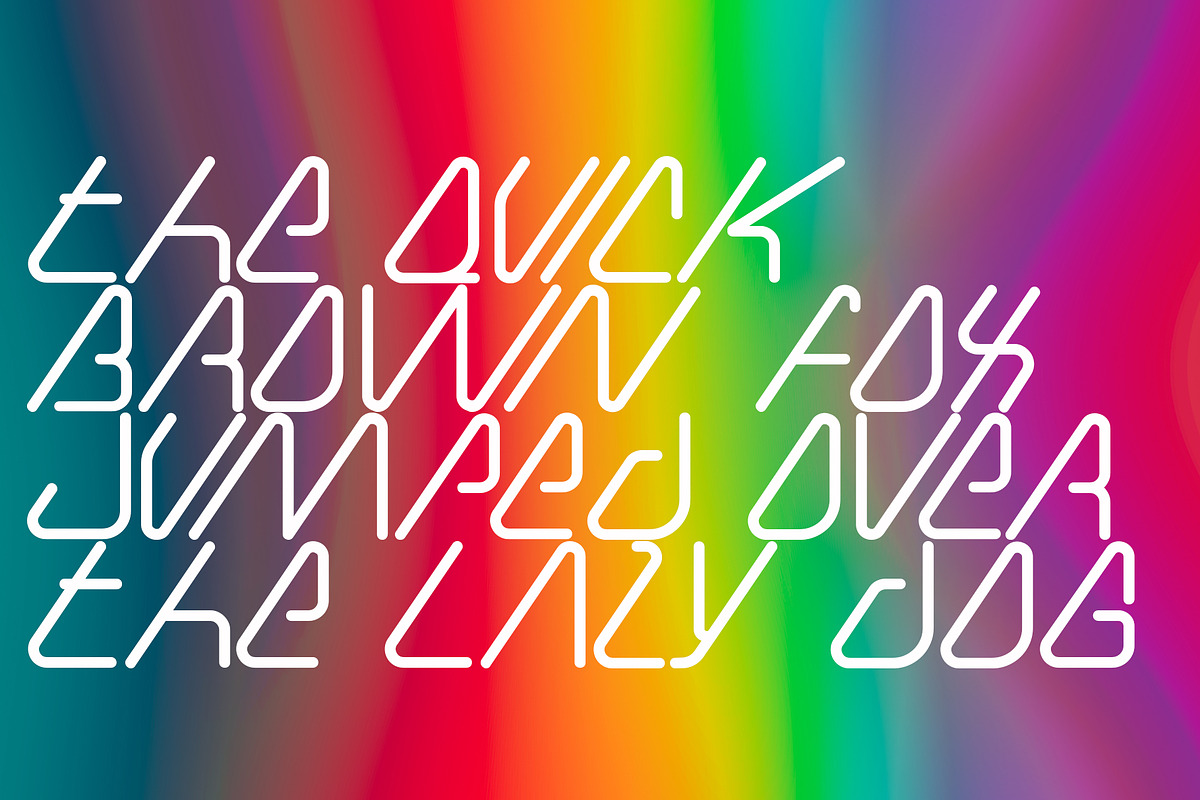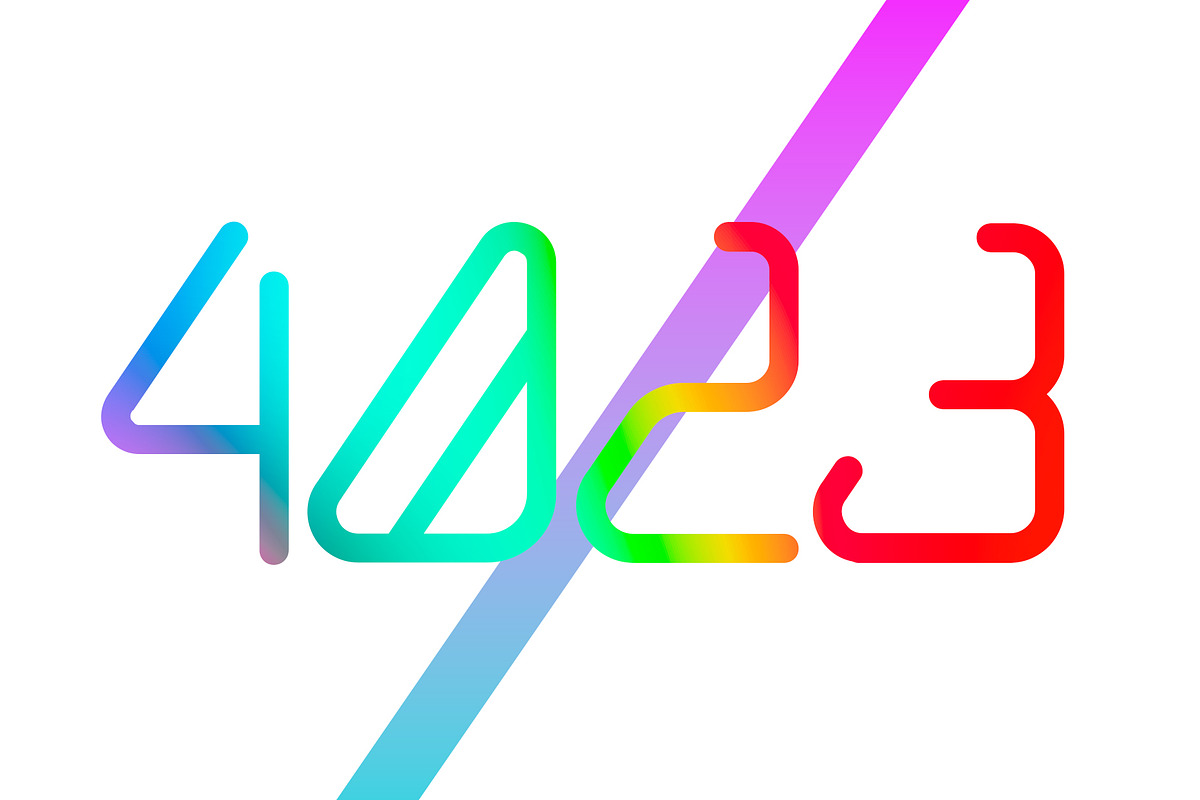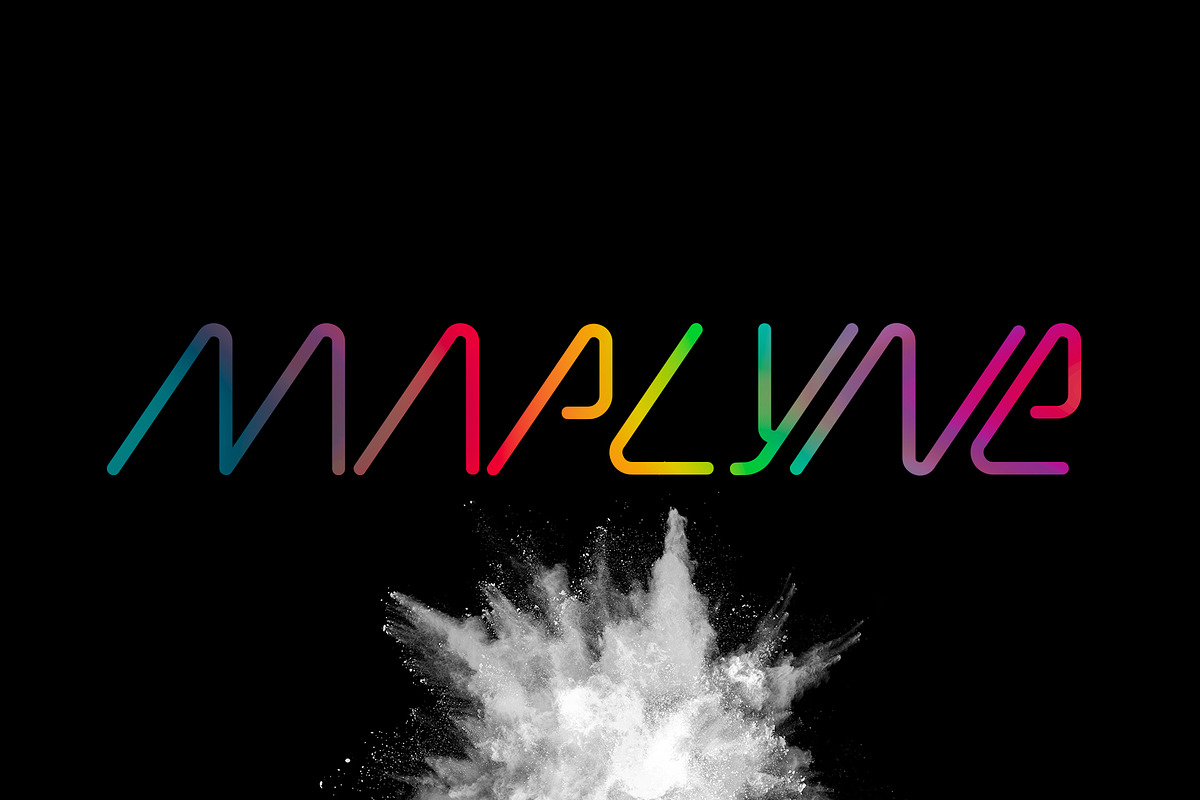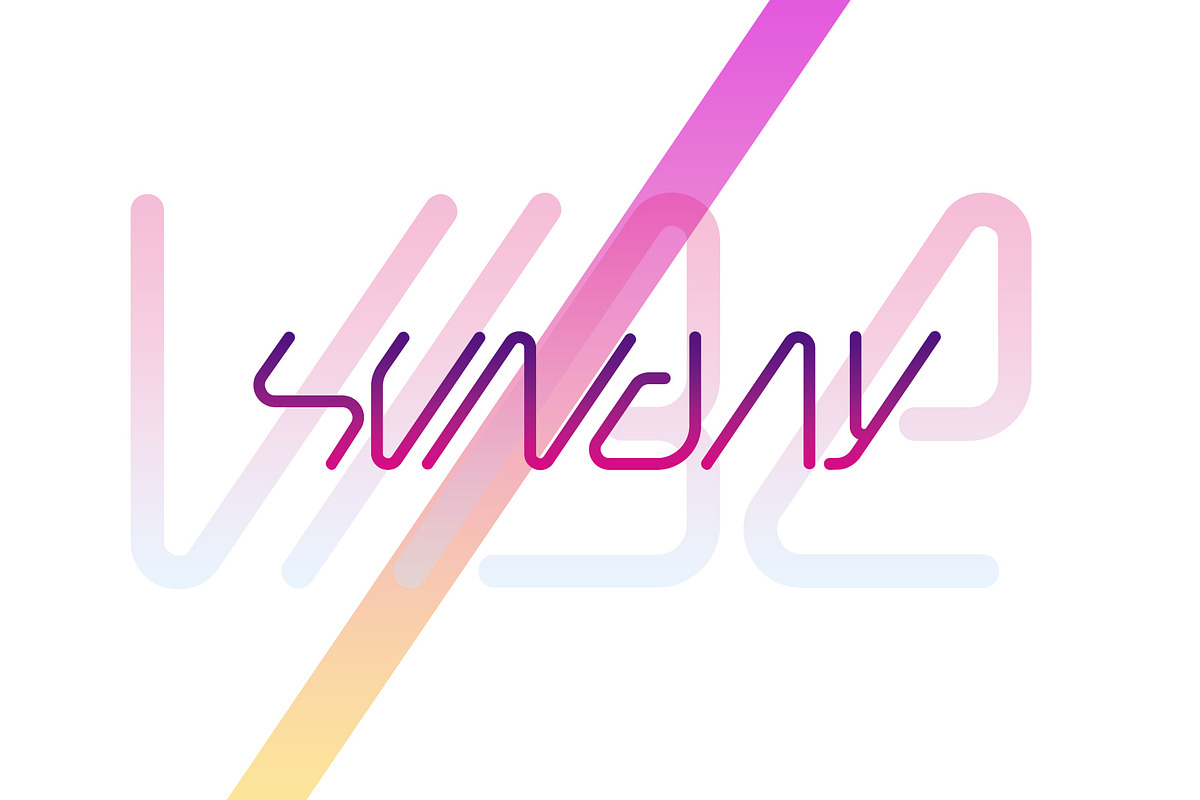
Maplyne
Maplyne is a font inspired by the shape of neon lights that are often used to display the name of a shop or a cafe. Most of the letters of this font consist of only one line stroke so it will be easy to apply it to a real neon sign. Add this font to your favorite creative ideas and notice how it makes them come alive!